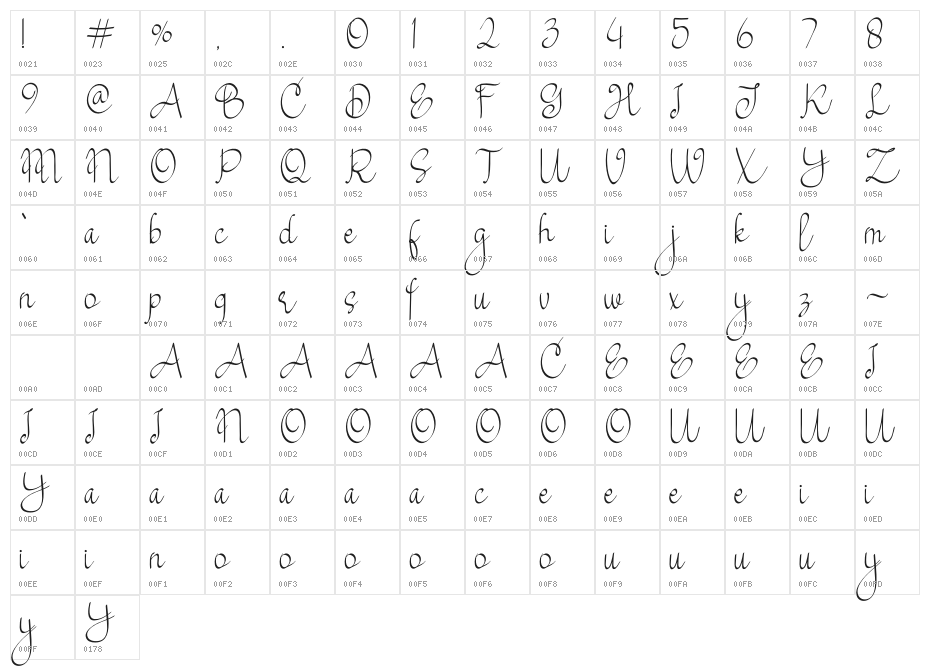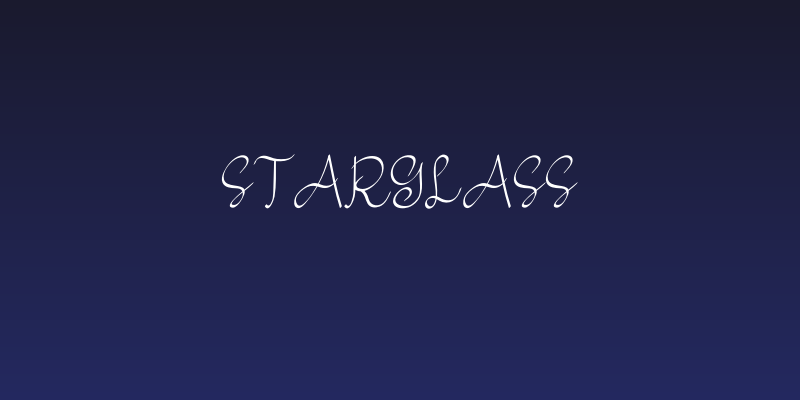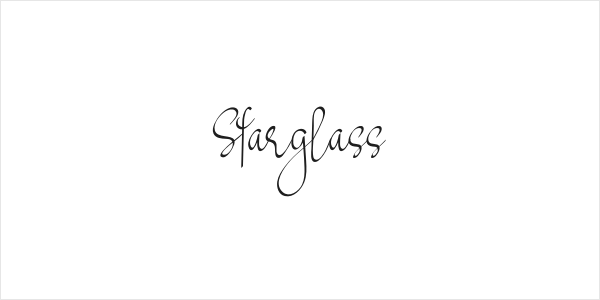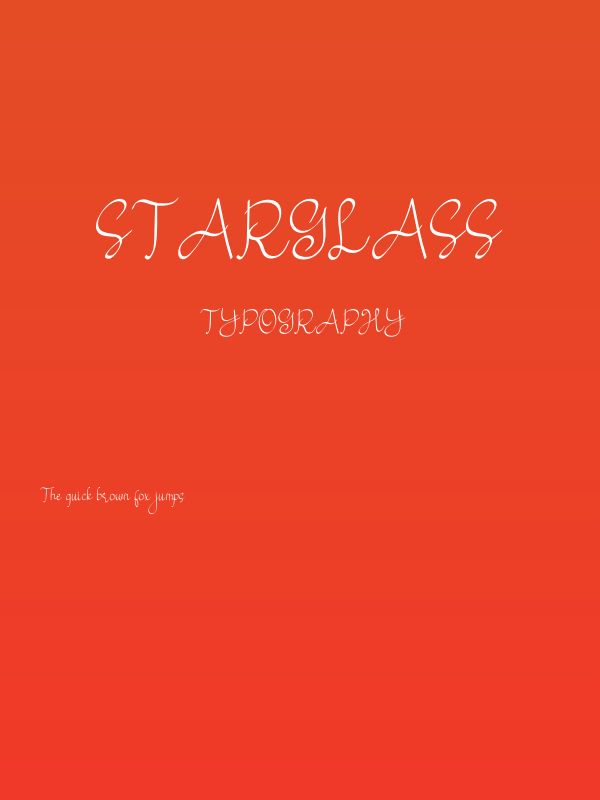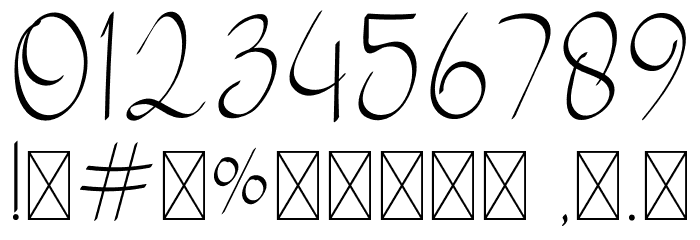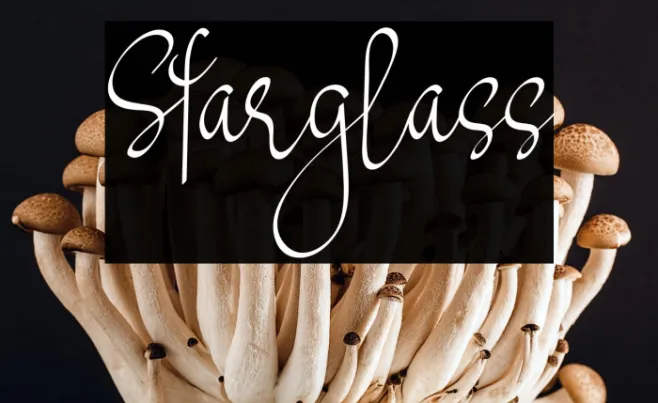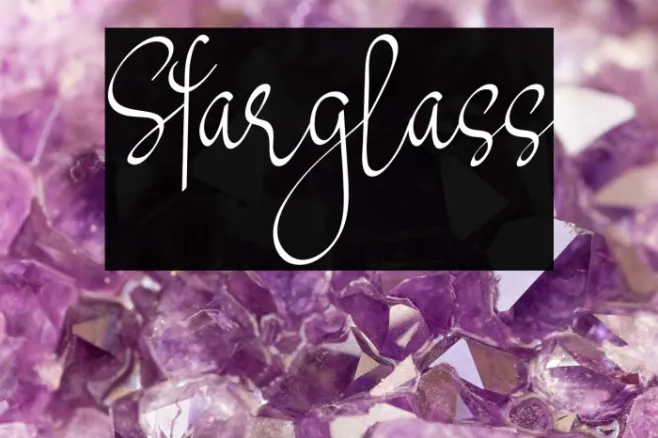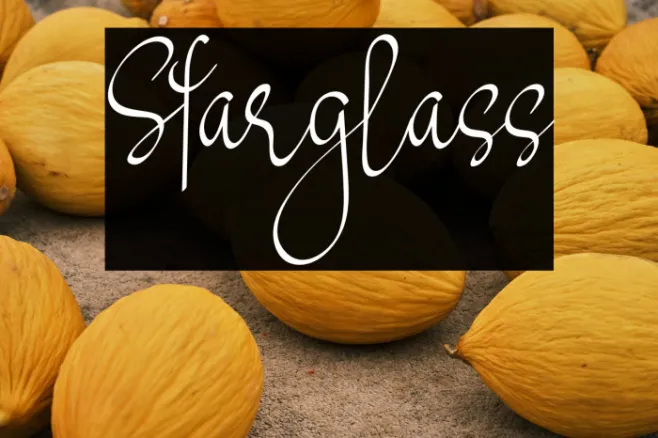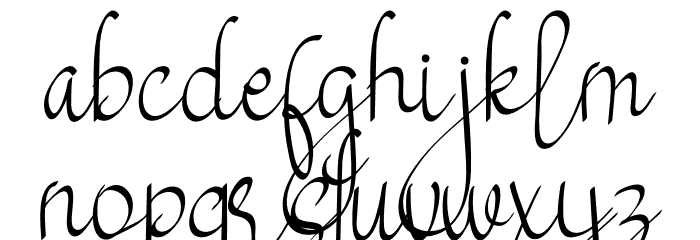
Starglass Font
Starglass Description
This elegant script font features a flowing, cursive style with a whimsical touch. The uppercase letters are characterized by their tall, slender forms and gentle curves, while the lowercase letters exhibit a more playful and dynamic appearance with loops and swirls. The numerals maintain a consistent style, complementing the overall aesthetic. The font includes a variety of special characters, adding versatility for creative projects. Its delicate strokes and graceful lines make it suitable for designs that require a touch of sophistication and charm.
| Use Case | Logos, Invitations, Decorative Text |
| Proposed Projects | Ideal for wedding invitations, greeting cards, elegant branding, and decorative posters. |